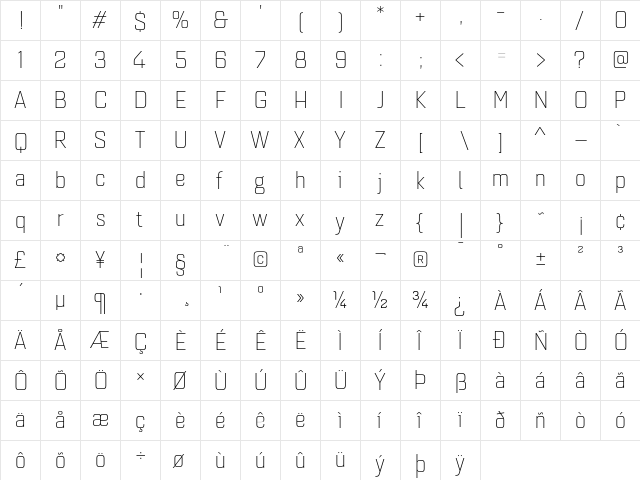
Quarca Norm Light
Design Context for Quarca Typeface
Quarca offers clean, dependable letterforms without strong stylistic allegiance, making it a practical choice for designers who need flexibility. The delicate stroke weight brings airiness and refinement to layouts.